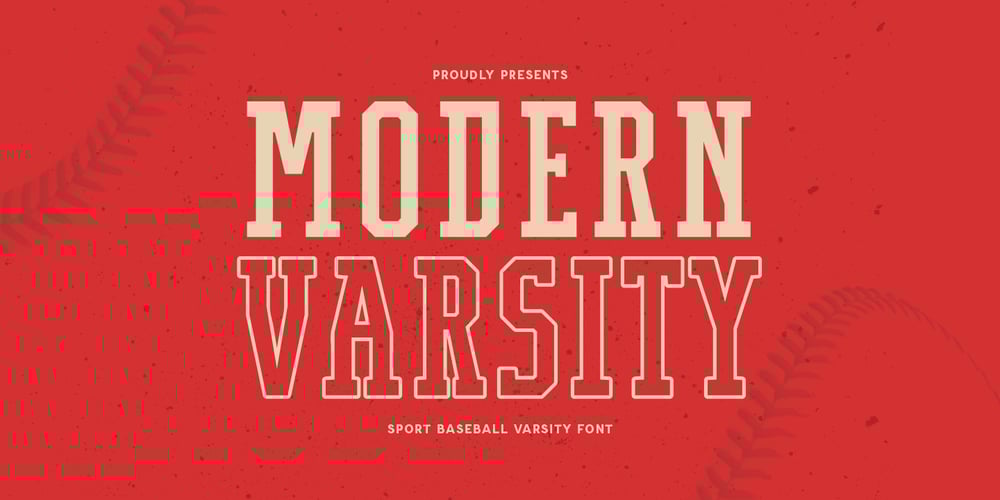
Modern Varsity Font Family was designed by Zamroni Hamzah and published by Sensatype Studio. Modern Varsity contains 2 styles and family package options. You are introducing Modern Varsity, a font that brings the spirit of the game to your designs. Inspired by varsity sports’ bold and dynamic look, Modern Varsity captures the excitement and energy of baseball and other athletic events. Perfect for team branding, sports merchandise, and varsity-themed projects, this font combines classic athletic aesthetics with a modern twist.The Story Behind Modern Varsity:Modern Varsity was born out of a love for sports and the iconic typography seen on team jerseys and college gear. Designed to evoke the nostalgia of game days and the thrill of athletic competition, this font brings a contemporary edge to traditional varsity lettering. Each character is crafted to ensure maximum impact, making it perfect for standout designs.Modern Varsity Font Features: Athletic Design: Bold and dynamic, ideal for sports and team-related projects. Baseball Inspiration: Captures the classic look of baseball and varsity sports. Versatile Usage: Great for team logos, sports merchandise, posters, and varsity-themed designs. Multiple Formats: Available in 4 formats for all your design needs. High Impact: Strong and clear letterforms that ensure your message stands out. Classic Meets Modern: Combines traditional varsity style with a contemporary touch. Inspirational Previews: Includes sample designs to inspire your creativity. Perfect For: Team Branding: Create bold and memorable logos for sports teams and clubs. Sports Merchandise: Design dynamic apparel, accessories, and gear for fans and players. Event Promotion: Develop eye-catching posters and flyers for athletic events and championships. Varsity Projects: Add a classic varsity look to yearbooks, school projects, and more. With Modern Varsity, your designs will capture the spirit and excitement of the game. Whether you’re creating team logos, sports merchandise, or varsity-themed projects, Modern Varsity provides the perfect blend of classic athletic style and modern design. Bring your projects to life with Modern Varsity and celebrate the thrill of the game.